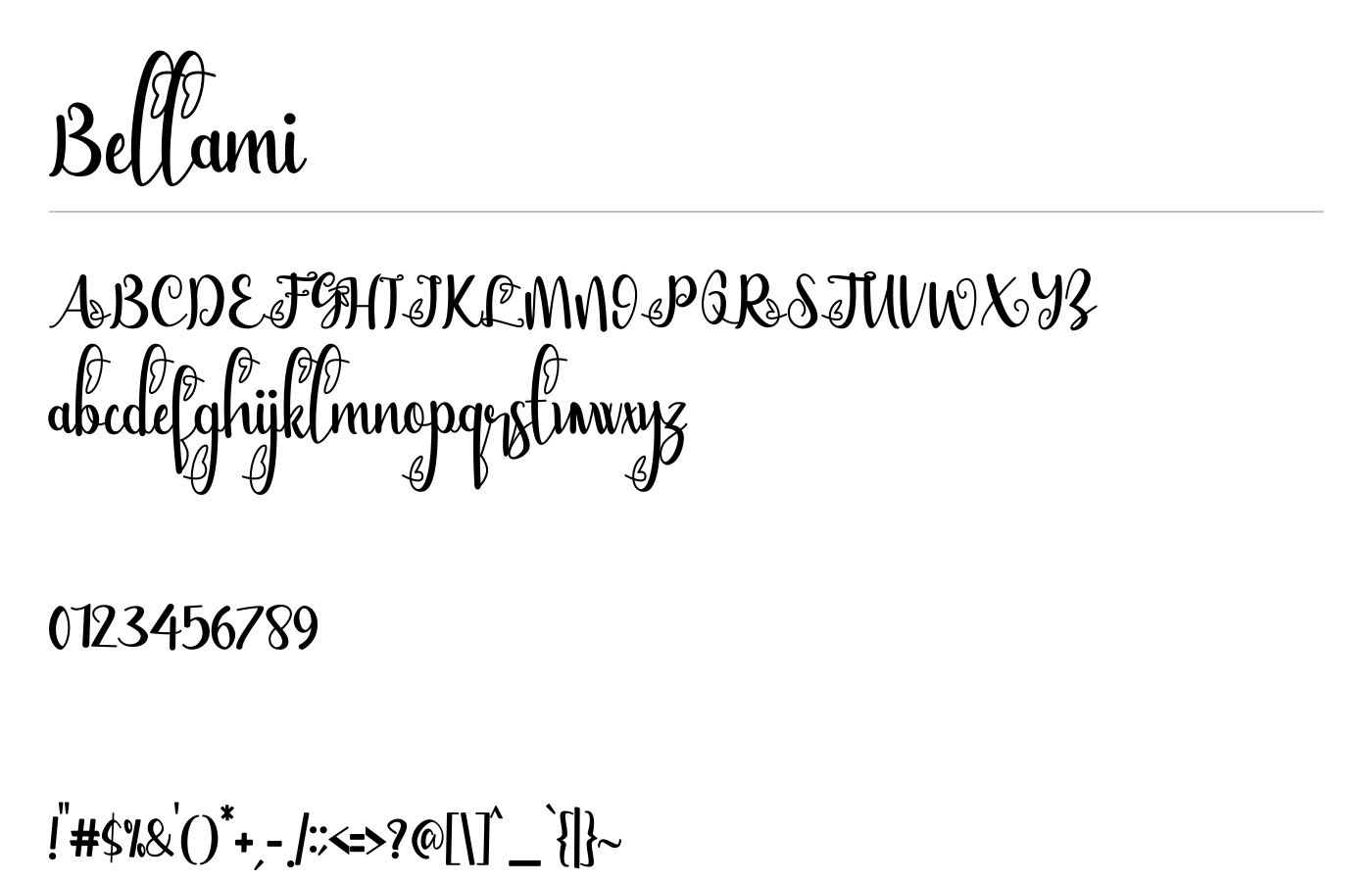
Bellami Font is an elegant and playful script typeface characterized by its tall, slender letterforms with charming swirls and decorative loops, creating a lively and inviting feel. Its light weight and ornate details make it perfect for branding, invitations, and creative projects that seek a sophisticated yet whimsical touch. This font shines in headlines and logos where style and personality are key.
Bellami Font
About Bellami Font